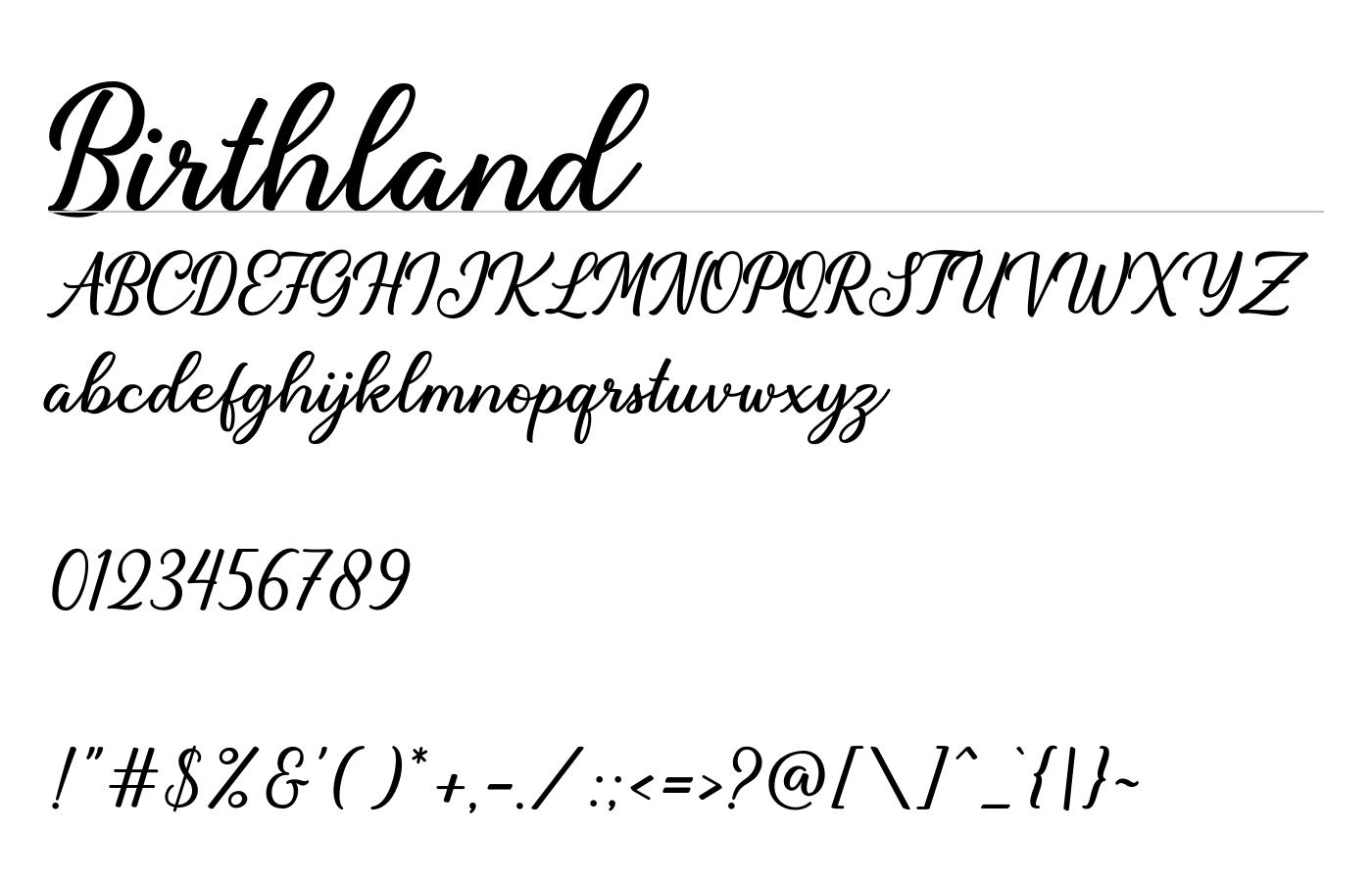
Birthland is an elegant script font with a smooth, flowing style that mimics classic handwriting. Its slender strokes and slightly slanted letters give it a graceful and refined character, making it perfect for invitations, branding, and any design that wants to convey a personal, sophisticated touch. This font works well in contexts where a touch of elegance and warmth is desired, such as luxury packaging, greeting cards, and stylish editorial headers.
Birthland Font
About Birthland Font
| Designer | Hendra Pratama & Fajar Abdul Fatah |